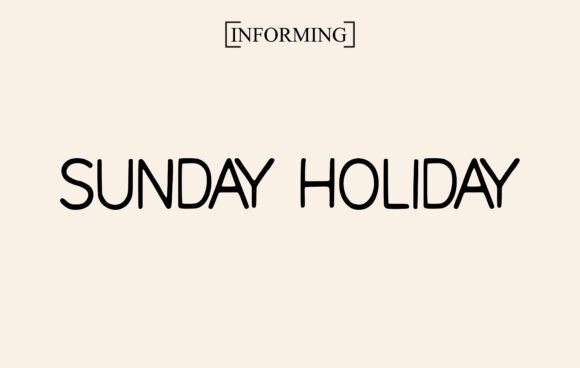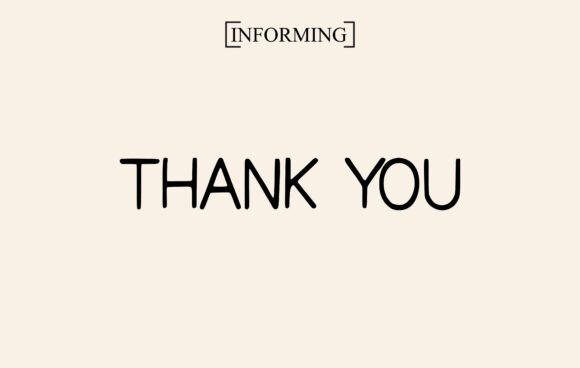
Introducing Bliss Halo Font: Elevate Your Designs with Elegance and Versatility
In the world of typography, a font can make or break a design. It’s the foundation upon which your creative ideas are built, and choosing the right one can be a daunting task. However, if you’re looking for a font that embodies elegance, versatility, and legibility, look no further than the Bliss Halo Font. This stunning font is designed to be a true favorite among designers and crafters, and for good reason. With its exceptional clarity and aesthetic appeal, it’s poised to take your creative projects to new heights.
Legibility and Versatility: The Hallmarks of Bliss Halo Font
One of the standout features of the Bliss Halo Font is its remarkable legibility. Whether you’re using it for a magazine headline, a t-shirt design, or a wedding invitation, this font ensures that your message is conveyed with clarity and precision. Its clean lines and well-crafted letterforms make it easy to read, even at smaller sizes, which is a significant advantage when working on projects that require a balance of form and function.
But what truly sets the Bliss Halo Font apart is its versatility. This font is not limited to a single use case; rather, it’s a flexible design tool that can be adapted to a wide range of applications. Imagine using it to create eye-catching social media graphics, professional branding materials, or heartfelt greeting cards. The possibilities are endless, and the font’s inherent elegance ensures that your designs will always look polished and sophisticated.
Design Applications: Where Bliss Halo Font Shines
So, where can you use the Bliss Halo Font to elevate your designs? The answer is: almost anywhere. Here are a few ideas to get you started:
- Magazine Headlines: Use Bliss Halo Font to create bold, attention-grabbing headlines that draw readers in. Its unique style and legibility make it perfect for titles and subtitles.
- T-Shirts and Apparel: The font’s clean design and readability ensure that your message or logo looks great on t-shirts, hoodies, and other apparel.
- Social Media Graphics: Create stunning social media posts with Bliss Halo Font. Its elegance and versatility make it ideal for Facebook, Instagram, Twitter, and more.
- Branding and Identity: Establish a strong brand identity with Bliss Halo Font. Use it for logos, business cards, and other marketing materials to convey professionalism and style.
- Wedding Invitations and Cards: Add a touch of sophistication to your wedding invitations, greeting cards, and other stationery with this beautiful font.
Why Choose Bliss Halo Font?
With so many fonts available, why choose Bliss Halo Font for your next project? Here are a few compelling reasons:
- Ease of Use: Bliss Halo Font is incredibly easy to use, even for those who are new to design. Its clear letterforms and generous spacing make it a joy to work with.
- High-Quality Design: This font is crafted with attention to detail, ensuring that your designs look professional and refined.
- Flexibility: Whether you’re working on a digital project or a print design, Bliss Halo Font adapts seamlessly to different mediums and sizes.
- Timeless Appeal: Unlike trendy fonts that quickly go out of style, Bliss Halo Font has a timeless quality that ensures your designs will remain stylish for years to come.
In conclusion, the Bliss Halo Font is a remarkable design tool that offers a perfect blend of elegance, versatility, and legibility. Whether you’re a seasoned designer or a crafty DIY enthusiast, this font has the potential to elevate your creative projects to new heights. With its wide range of applications and timeless appeal, it’s an excellent addition to any designer’s toolkit. So why wait? Explore the possibilities of Bliss Halo Font today and discover how it can help you bring your creative ideas to life.